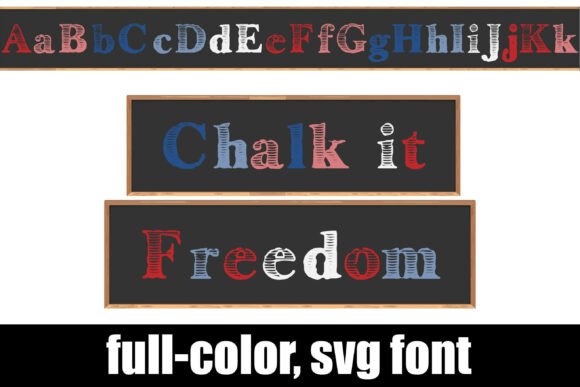
Introducing Chalk It Freedom Font: A Fun and Patriotic Full-Color Font
If you’re looking for a font that adds a touch of personality to your designs, look no further than the Chalk It Freedom Font. This full-color font features a fun chalkboard font in patriotic colors, perfect for creating eye-catching designs for Independence Day, Memorial Day, or any other patriotic-themed project.
Key Features of Chalk It Freedom Font
- Fun chalkboard font in patriotic colors
- Use the greater than and less than glyphs to create chalkboard ends
- Alt case of alternate colorings of each letter accessible through system or Silhouette’s glyph map
- OpenType full-color (SVG) font
Tips for Using Chalk It Freedom Font
Here are some tips for getting the most out of the Chalk It Freedom Font:
- Experiment with different colors and styles to create unique designs
- Use the greater than and less than glyphs to add chalkboard ends to your text
- Access alternate colorings of each letter through your system or Silhouette’s glyph map
The Chalk It Freedom Font is a fun and patriotic full-color font that’s perfect for adding a touch of personality to your designs. With its versatility, scalability, and high-quality resolution, it’s an excellent choice for a wide range of projects. Whether you’re designing for Independence Day, Memorial Day, or just want to add some color to your designs, the Chalk It Freedom Font is a great option.